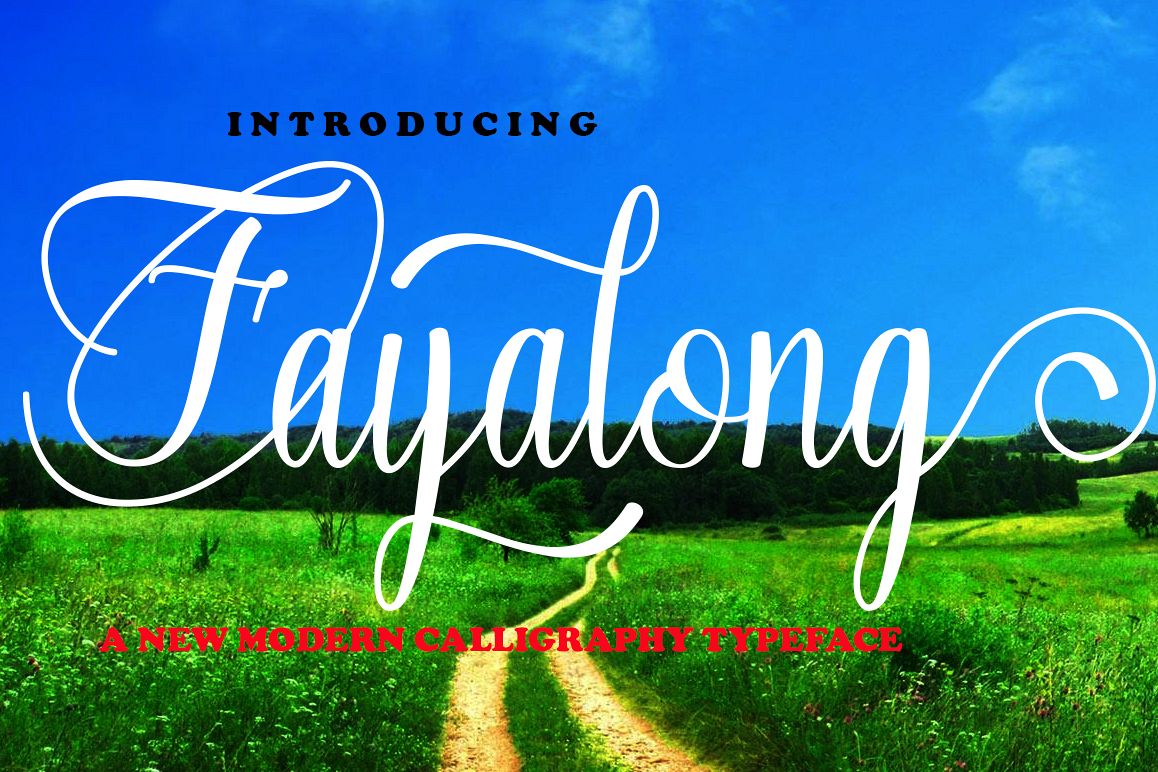
Fayalong Scipt
INTRODUCING Fayalong is the font style handmade dancing up to 504 glyph and then live trace to have unique forms of calligraphy, the writing style is
very natural.The Features of this fonts is;
• Standart ligatures
• Stylistic sets
• Swash
• PUA Unicode (Private Use Areas)
Can be used for various
purposes.such as headings, logos, wedding invitation, t-shirt, letterhead,